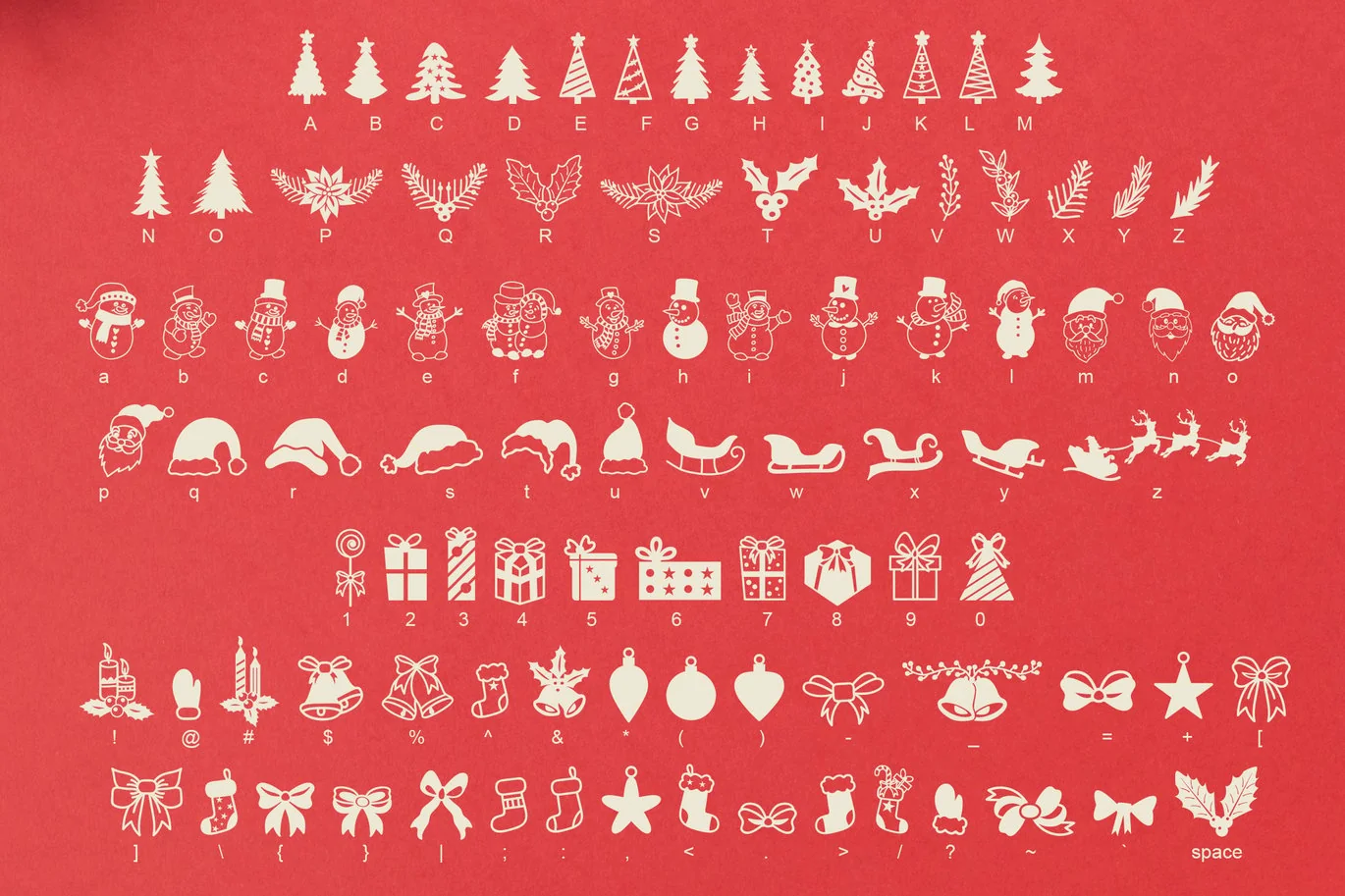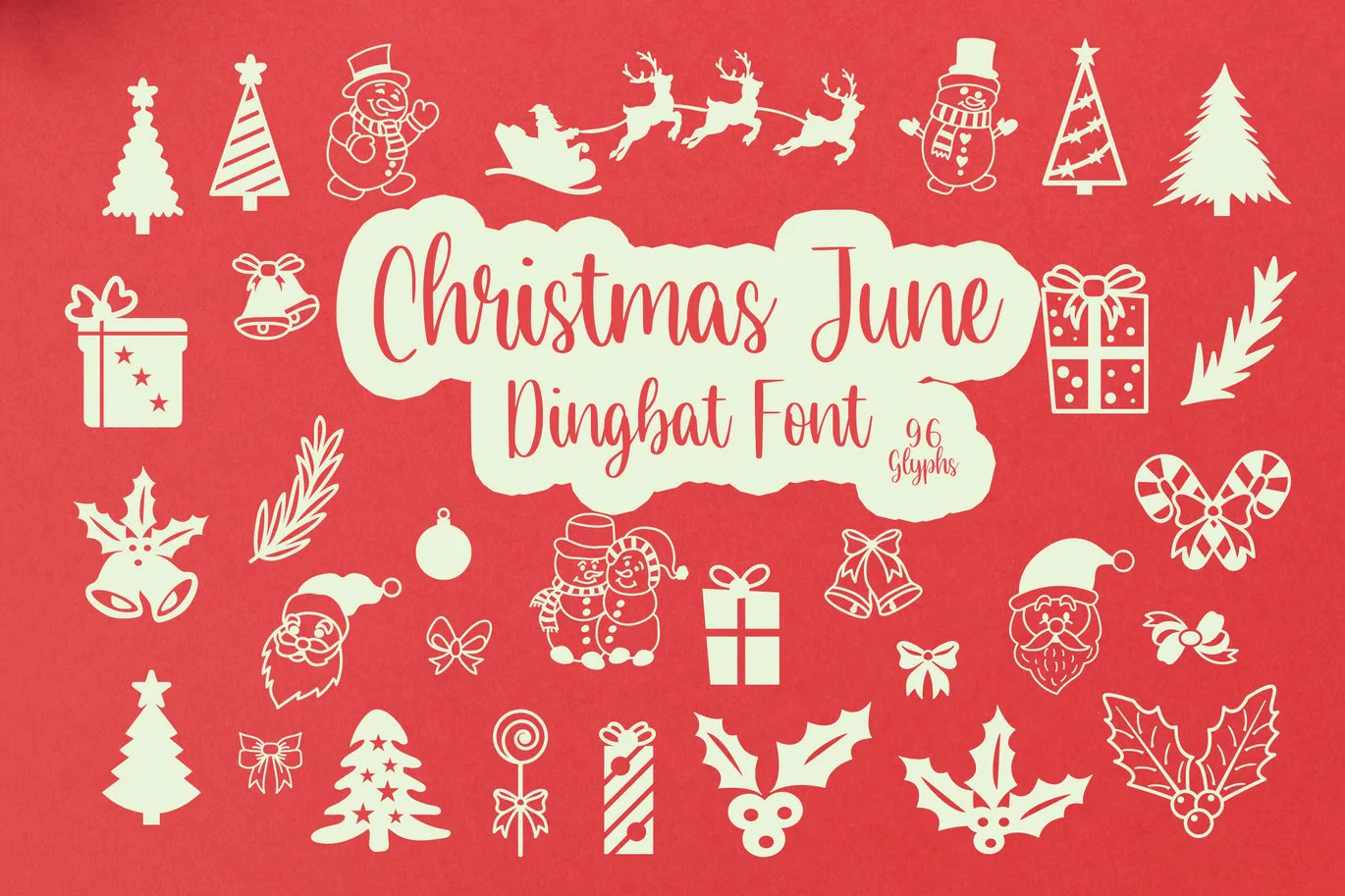
Christmas June Dingbat Font
Christmas June Dingbat font – christmas decoration elements font Included total 96 glyphs, upper case, lower case, numbers, punctuation and symbols.